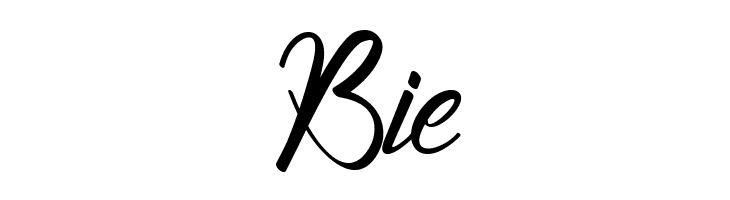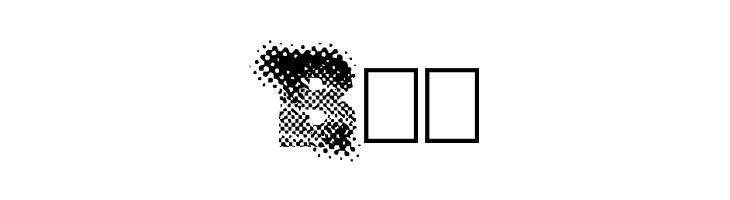
A bold, three-dimensional font with a striking shadow effect and geometric design.
A playful, handwritten font with tall, narrow letters and a whimsical style.
A graceful script font with flowing, interconnected strokes and decorative flourishes.
An elegant, flowing script font with modern curves and delicate loops.
A bold, retro-style font with a halftone pattern and dynamic slant.
A playful, bold font with rounded strokes and geometric elements.
A graceful and fluid script font with elegant, cursive strokes.
A graceful and elegant script font with fluid, connected strokes.
A playful and whimsical script font with decorative loops and expressive flourishes.
A modern, minimalist font with tall, narrow letters and clean lines.
A dynamic and fluid script font with elegant, flowing strokes.
A bold, expressive brush-style font with a dynamic, hand-painted look.
A bold, brushstroke-style font with a dynamic and expressive appearance.
A dynamic and fluid handwritten script with elegant, flowing strokes.
A bold, cursive font with a dynamic and elegant style.
A dynamic and expressive handwritten font with fluid strokes and playful curves.
A bold, brush-style font with dynamic, textured strokes.
A bold, brush-stroke font with dynamic and artistic flair.
A bold, brush-style font with an edgy, dynamic appearance.
A bold, graffiti-inspired font with dynamic and artistic strokes.
A bold, dynamic brush script font with expressive strokes.
A dynamic, handwritten script font with fluid, interconnected characters.
A bold, expressive script font with dynamic, flowing strokes.
A dynamic brush-style font with fluid, hand-drawn strokes.
A bold, brush-style font with dynamic, hand-painted strokes.
A casual, handwritten font with fluid, dynamic strokes and a natural flow.
A dynamic handwritten font with fluid strokes and playful curves.
A lively and expressive handwritten font with fluid, dynamic strokes.
A bold, brush-style font with dynamic, textured strokes and an expressive, artistic appearance.
A lively and expressive handwritten font with fluid, dynamic strokes.
A bold, energetic script font with dynamic, sweeping strokes.
A lively, handwritten font with dynamic strokes and playful loops.
A bold, dynamic brush-style font with expressive strokes and a hand-painted look.
A bold, energetic script font with fluid strokes and a dynamic style.